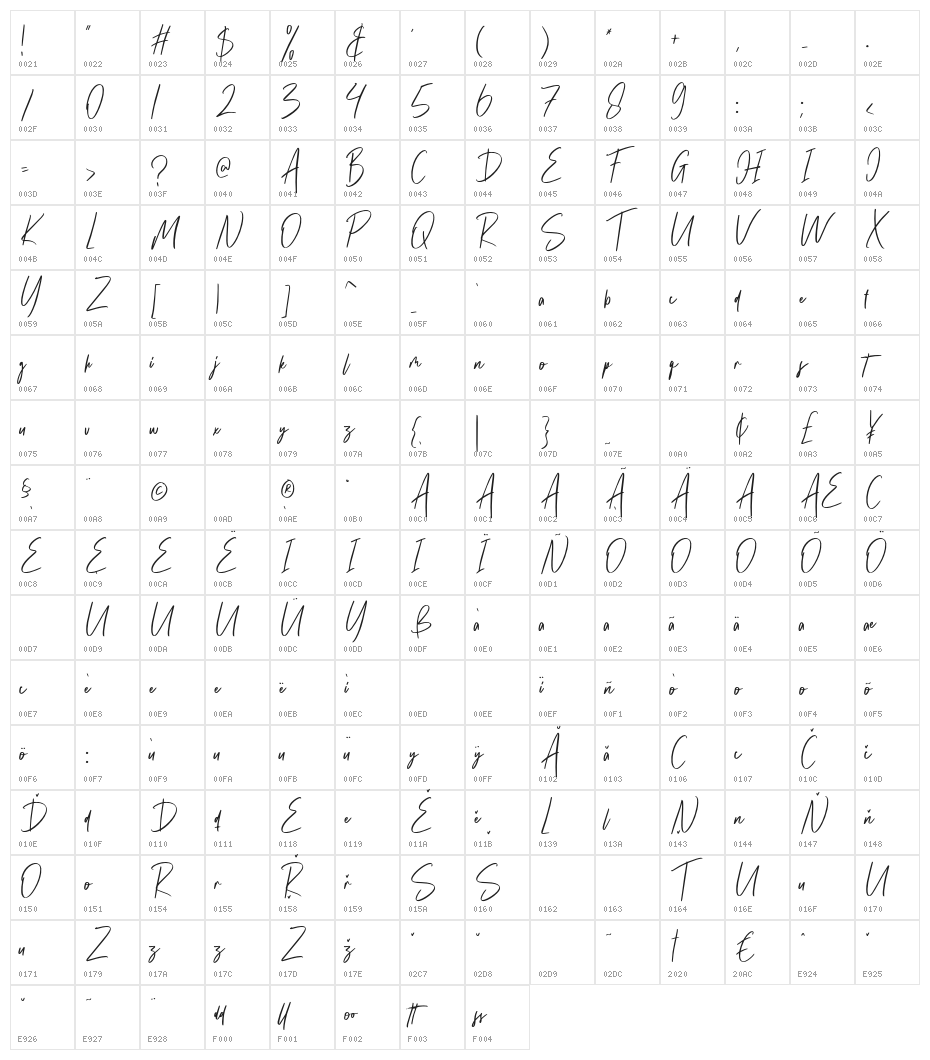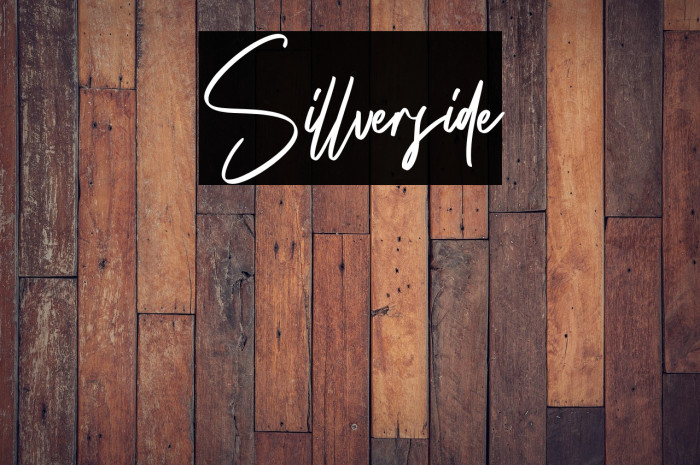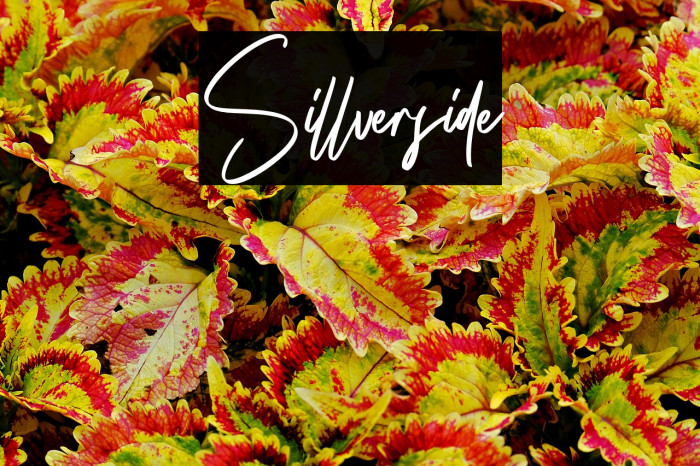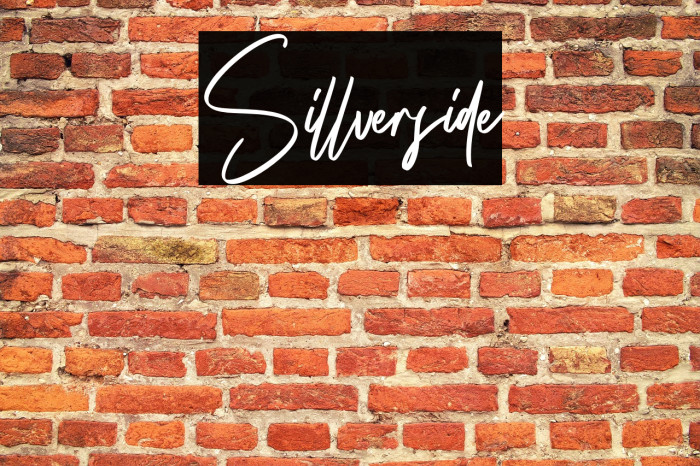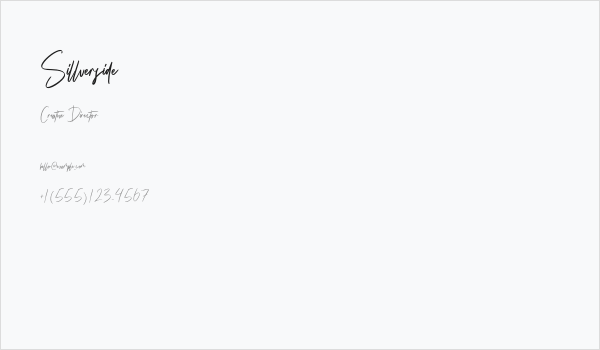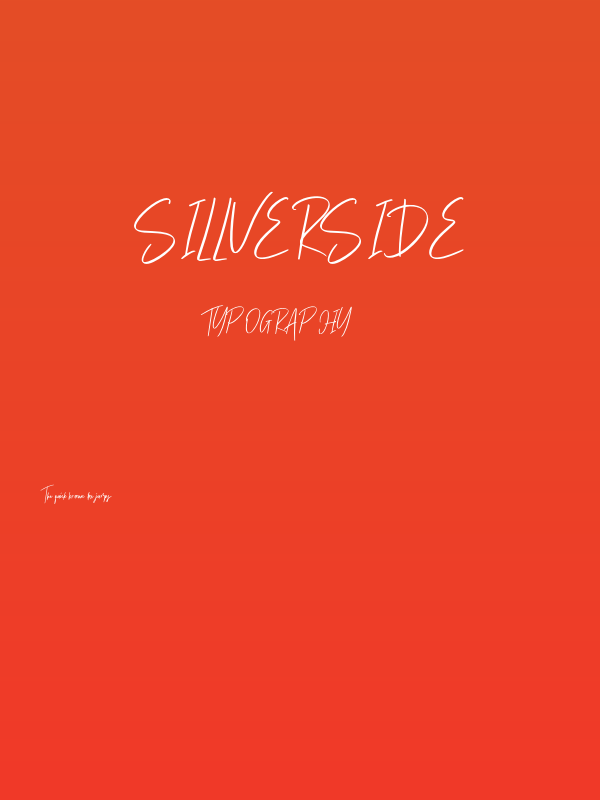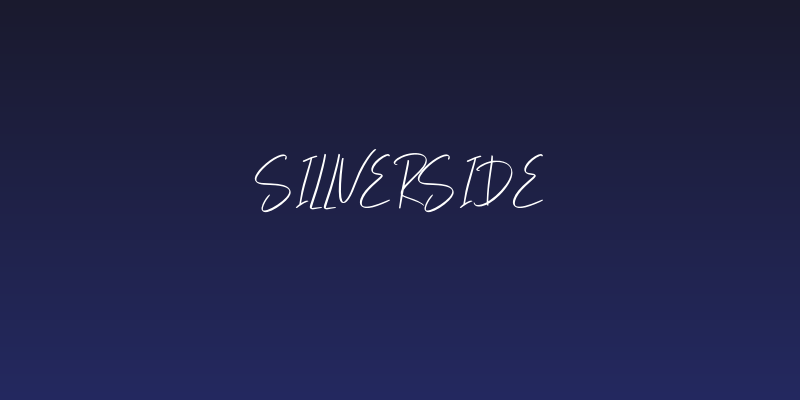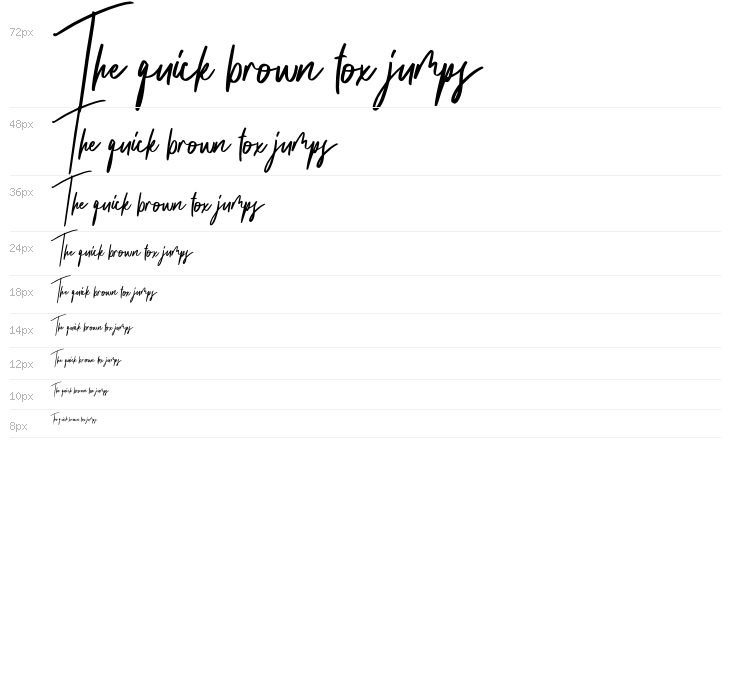
Sillverside Font
Sillverside Description
This font features a dynamic and fluid handwritten style, characterized by its elegant and flowing letterforms. The uppercase letters are tall and slender, with a slight slant that adds a sense of motion and grace. The lowercase letters maintain a consistent style, with smooth curves and a natural, organic feel. The numerals are similarly styled, offering a cohesive look across all characters. Special characters are thoughtfully designed to match the overall aesthetic, making this font versatile for various design needs. The strokes are consistent in width, providing a balanced appearance without high contrast.
| Use Case | Logos, Invitations, Personal Branding |
| Proposed Projects | Ideal for wedding invitations, personal branding, greeting cards, and creative projects that require a personal touch. |